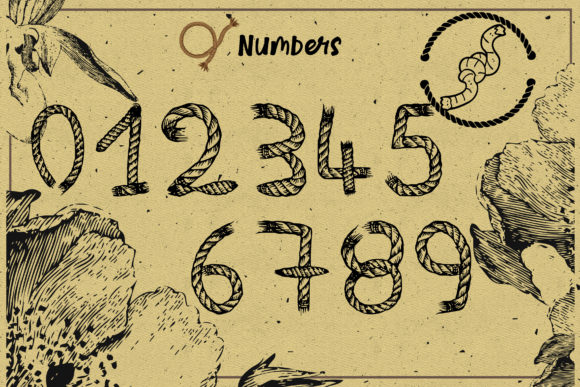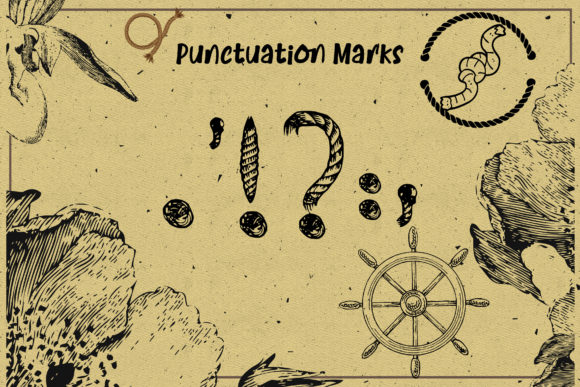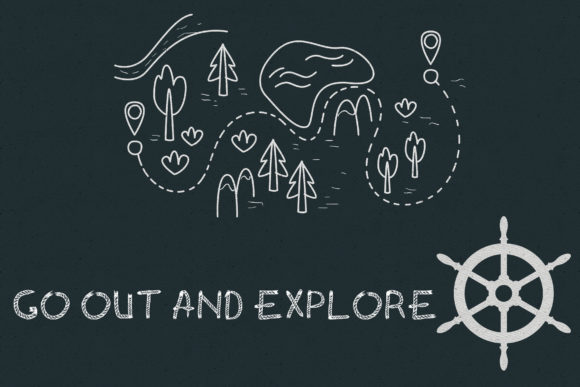
Introduction to Rope 1969 Font
Have you ever found yourself in a creative rut, staring at a blank canvas or screen, desperately searching for the perfect design element to bring your project to life? That’s where the Rope 1969 Font comes in – a game-changing, high-quality design resource that can breathe new life into your creative endeavors.
As a designer, you know the importance of having the right tools at your disposal. With the Rope 1969 Font, you’ll be able to add a touch of elegance and sophistication to your designs, whether you’re working on a free download or a paid project. This unique, decorative script typeface is the perfect addition to any font library, and its versatility makes it an invaluable asset for any creative project.
What sets the Rope 1969 Font apart is its ability to seamlessly integrate with transparent backgrounds, allowing your designs to shine with a level of depth and dimension that’s hard to achieve with other fonts.
Key Features of Rope 1969 Font
- Unique, distressed texture design ideal for creative projects and designs that require a vintage aesthetic.
- High-quality font with a transparent background, making it easy to layer and combine with other design resources.
- Designed with a high resolution (300 DPI) for crisp and clear display on various devices and mediums.
- Perfect for designers looking for a distinctive, hand-drawn font to add a personal touch to their designs.
- Can be used in a variety of design contexts, including logos, branding, and typography-based creative projects.
Honest Review: Rope 1969 Font
As a designer, I’m always on the lookout for high-quality design resources that can elevate my creative projects. The Rope 1969 Font is one such resource that caught my attention.
What works well: ✨ The Rope 1969 Font has a unique, distressed look that’s perfect for designs that require a vintage or retro feel. The font is highly customizable, allowing me to adjust the opacity and color to suit my needs. The transparent background makes it easy to layer over other design elements.
Here are some key features that make the Rope 1969 Font stand out:
- Unique, distressed look
What doesn’t work so well: ⚠️ While the Rope 1969 Font is high-quality, it’s not ideal for designs that require a clean, modern look. Additionally, the font can be quite busy, which may make it difficult to read in certain contexts.
Overall impression: I’m impressed with the Rope 1969 Font, and I think it’s a great addition to any designer’s toolkit. With its unique look and high level of customizability, it’s perfect for designers who want to add a touch of personality to their creative projects.
Rope 1969 Font
The Rope 1969 Font is a versatile and high-quality design resource ideal for creative projects. This free download font offers a unique and stylish aesthetic that can elevate your designs to the next level.
Tips for Getting the Most Out of Rope 1969 Font
To get the most out of Rope 1969 Font, use it with a transparent background to create a seamless design. You can also combine it with other design elements, such as graphics and images, to create a unique and eye-catching design.
The Rope 1969 Font is ideal for a variety of creative projects, including:
- Posters and advertisements
Can I customize the Rope 1969 Font to fit my specific design needs?
Yes, the Rope 1969 Font is fully editable, allowing you to customize it to fit your specific design needs. You can use font editing software to modify the font’s style, size, and color, or use it as a starting point for creating your own